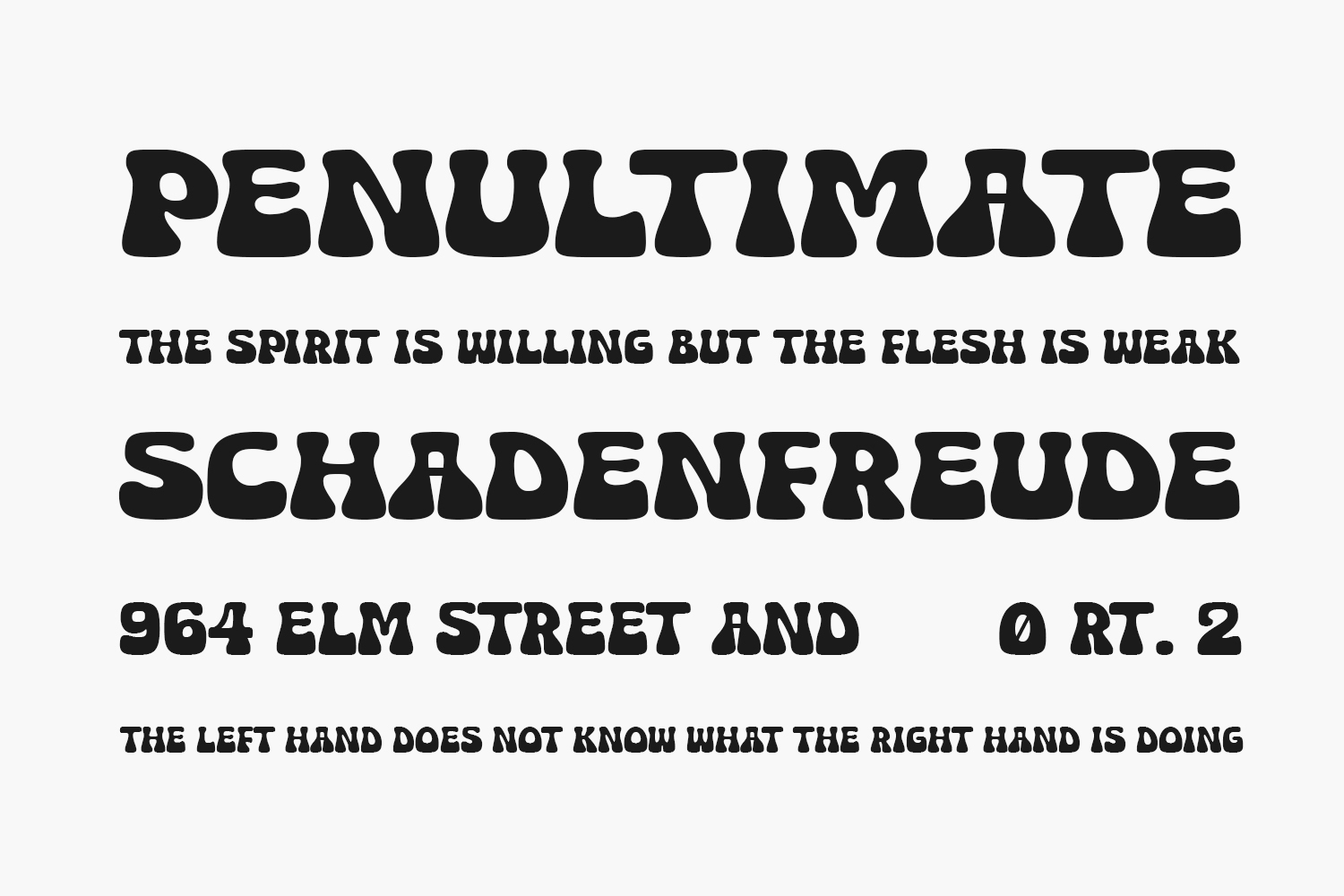
Super Festival – Free Retro-Groovy Display Font with Energetic Flair
Super Festival is a vibrant retro-groovy display font designed by Fsuarez913. With bold, boxy letterforms and playful curves reminiscent of the 1960s–70s era, it brings an upbeat, vintage charm to any project. Ideal for posters, album covers, event flyers, retro quotes, and fun branding, this font comes in TTF format and is free for personal use. A commercial license is required for business use.
- Retro-Groovy Aesthetic: Bold, decorative shapes with vintage flair.
- High Visual Impact: Thick strokes and condensed spacing make it ideal for large headings.
- Playful & Bold: Perfect for youth-focused designs and event posters.
- Posters & Flyers: Eye-catching choice for music, vintage-themed, and festival posters.
- Album Covers: Retro-inspired letterforms that complement throwback designs.
- Event & Party Branding: Ideal for invitations, banners, and signage.
- Quote Graphics & Social Media: Adds character to Instagram posts, YouTube thumbnails, or TikTok overlays.
- Retro Packaging & Logos: Great for product packaging or boutique identity with a nostalgic twist.
Design Tips with Super Festival
Use Super Festival at large sizes (30 pt+ or 40px+) to show off its retro shapes. Pair it with clean sans-serifs like Highway Gothic or Gantari to maintain visual balance. Use vintage color palettes—mustard yellows, olive greens, and burnt oranges—or bold black-and-white contrast for a classic look.
- Glyphs: Uppercase A–Z, lowercase a–z, numerals, punctuation, basic Latin (~234 glyphs).
- Language Support: Basic Latin (English and Western European).